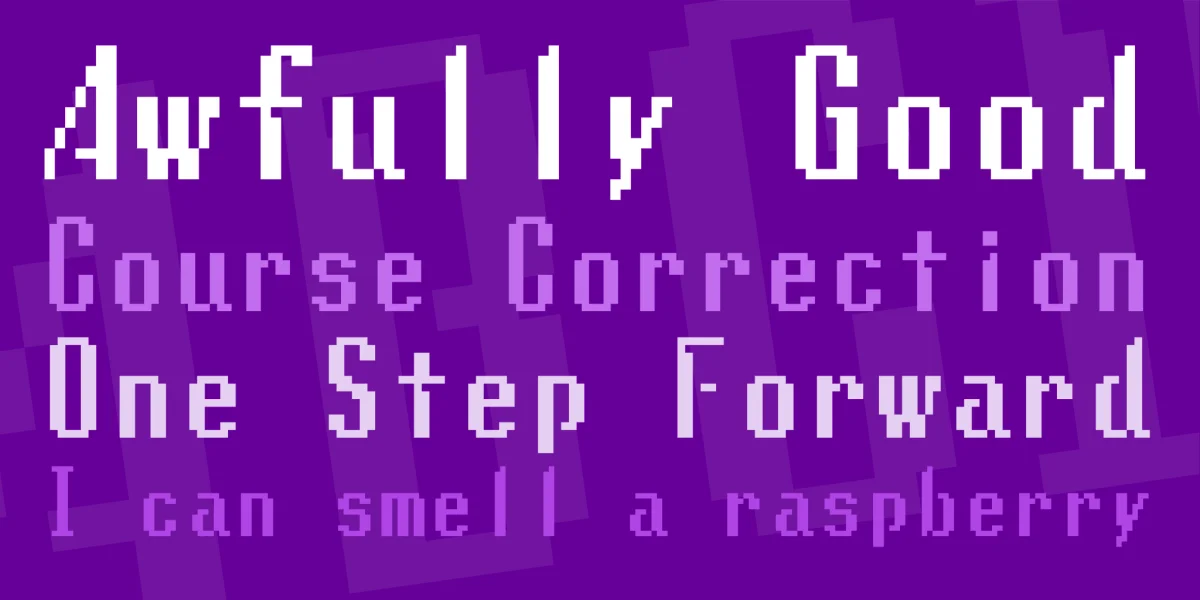
The font used for dialogue in a number of Enix's Super Nintendo RPGs, including Soulblazer, Illusion of Gaia (a.k.a. Illusion of Time) and Terranigma.